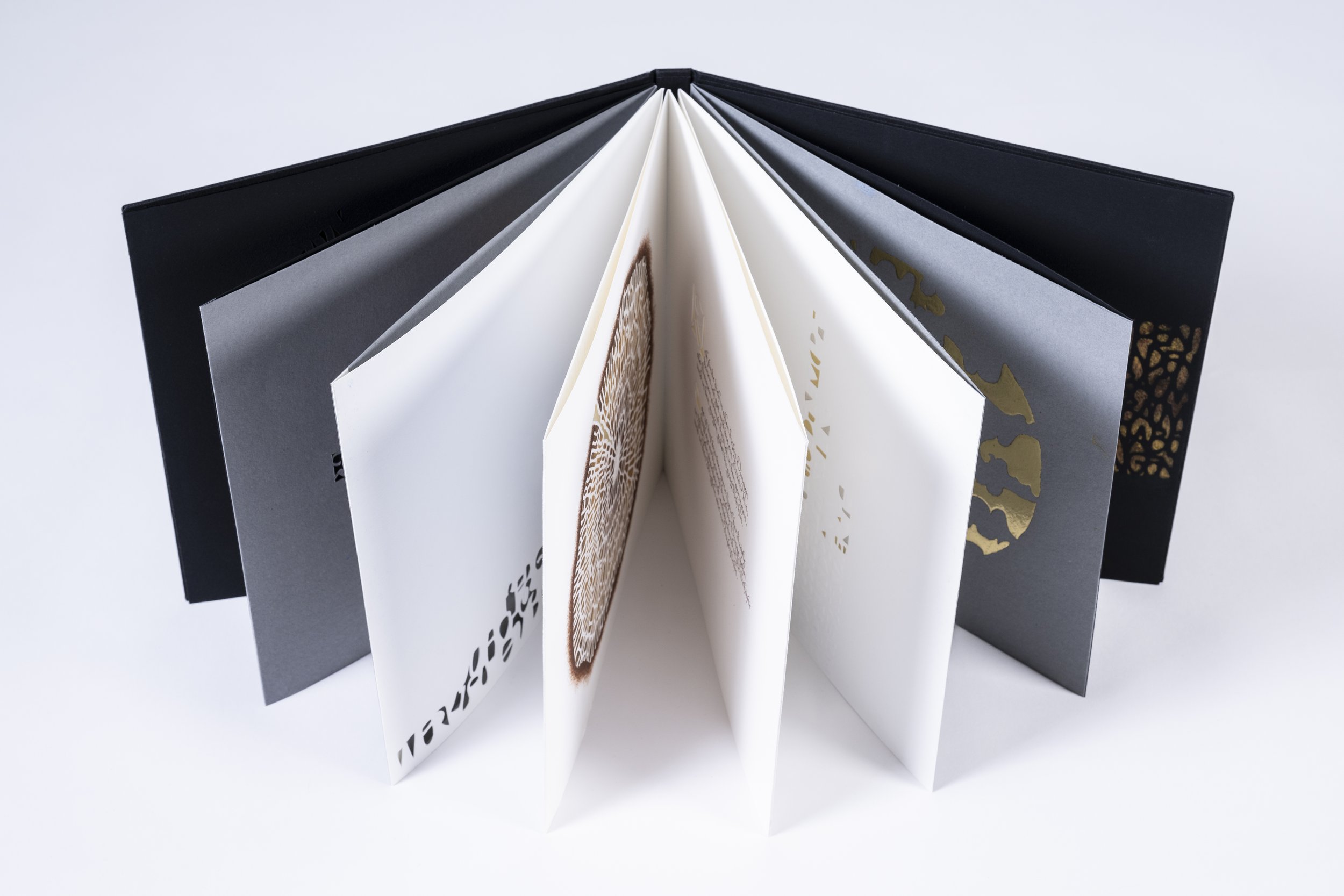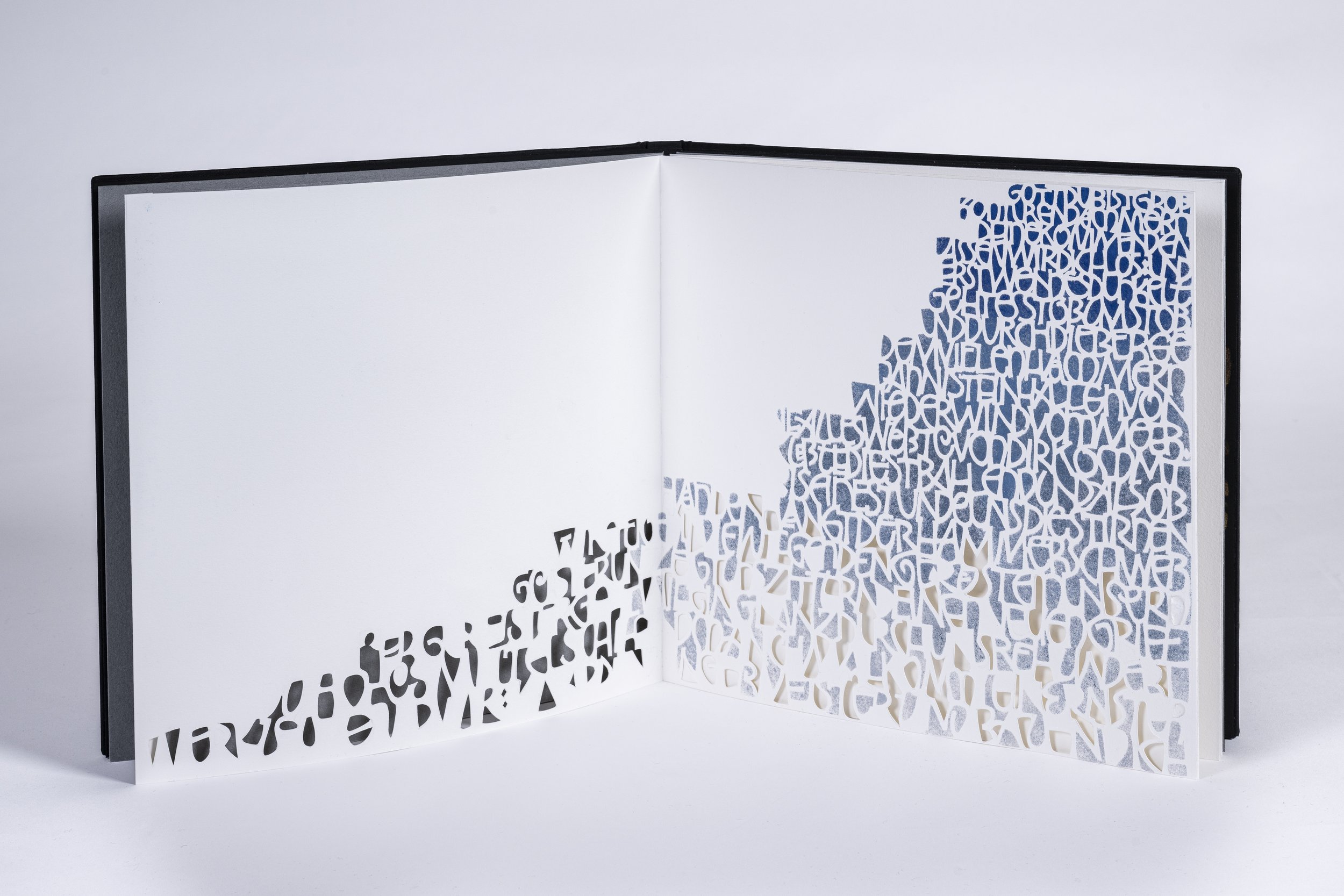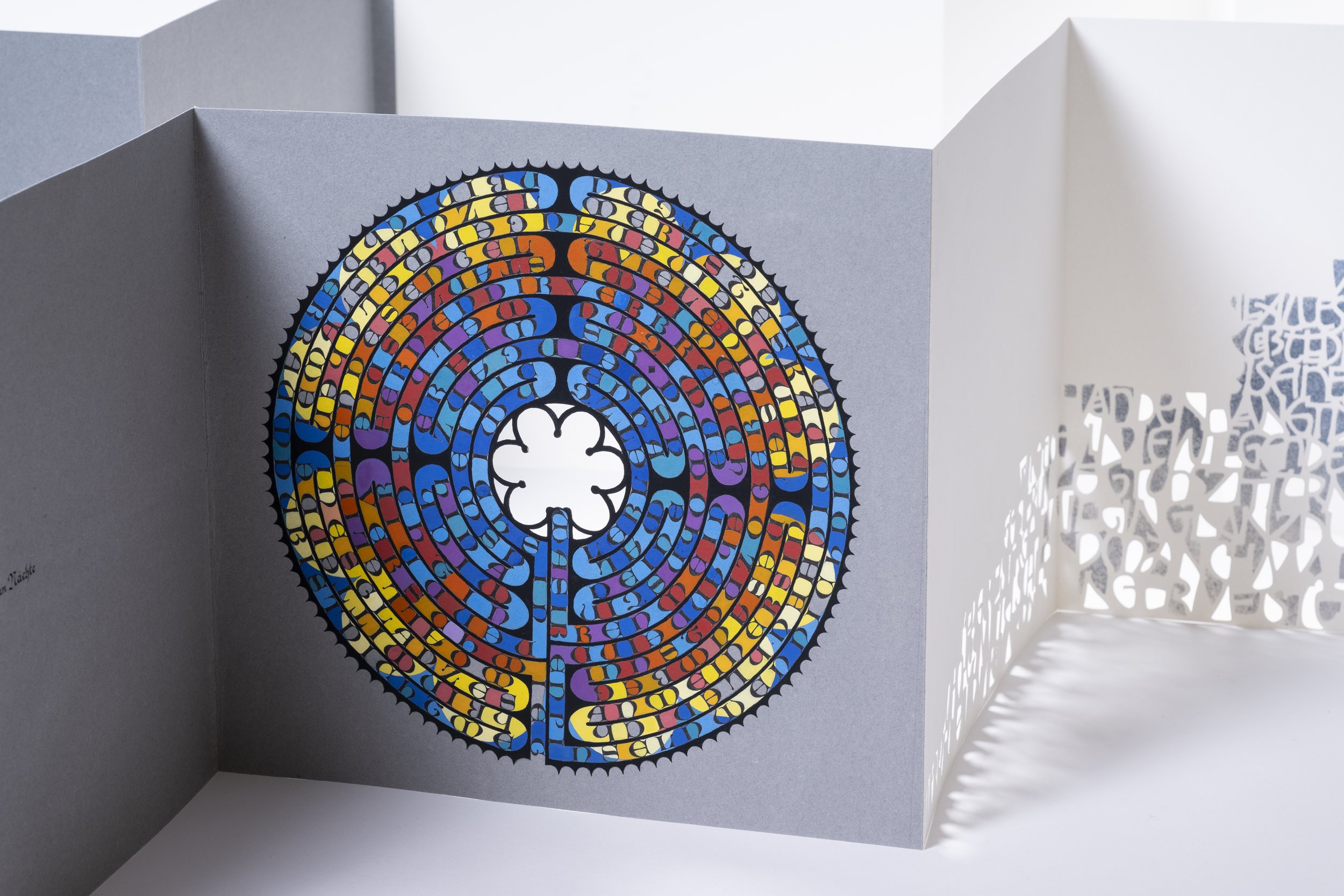
IRÈNE LE CORRE - Rilke: A modern Book of Hours
ARTIST | Irène Le Corre
BASED IN | Geneva, Switzerland
TITLE | Rilke: A modern Book of Hours
SIZE | 320 mm x 300 mm
A leporello book with a selection of 8 poems from Rainer Maria Rilke’s Book of Hours spread over 7 double pages, corresponding to the 7 hours of prayer in Christian liturgy (Matutin, Laudes, Terz, Sext, Non, Vesper and Komplet). The colours of the paper hint at the times of the day while the book is bound in a way that suggests a cycle, once unfolded. Calligraphy pages alternate with more graphic letter designs, which are either painted, stenciled, embossed or gilded.
MEDIUM | BFK Arches Paper, gouache and gold leaf
Irène Le Corre, a trained Arts and Communications Manager, reconnected with her handwriting and drawing skills in early 2020. Since then, she has been fostering her passion for calligraphy and decorated letters through numerous workshops with international teachers. Her special interest lies in traditional and contemporary illumination. 'I have been very interested in illumination and have been learning different gilding techniques over the past few years. So, I wanted include gilding in my SymbiosisIV pieces: including traditional gilding but also larger scale, more experimental gilding,' says Irène.